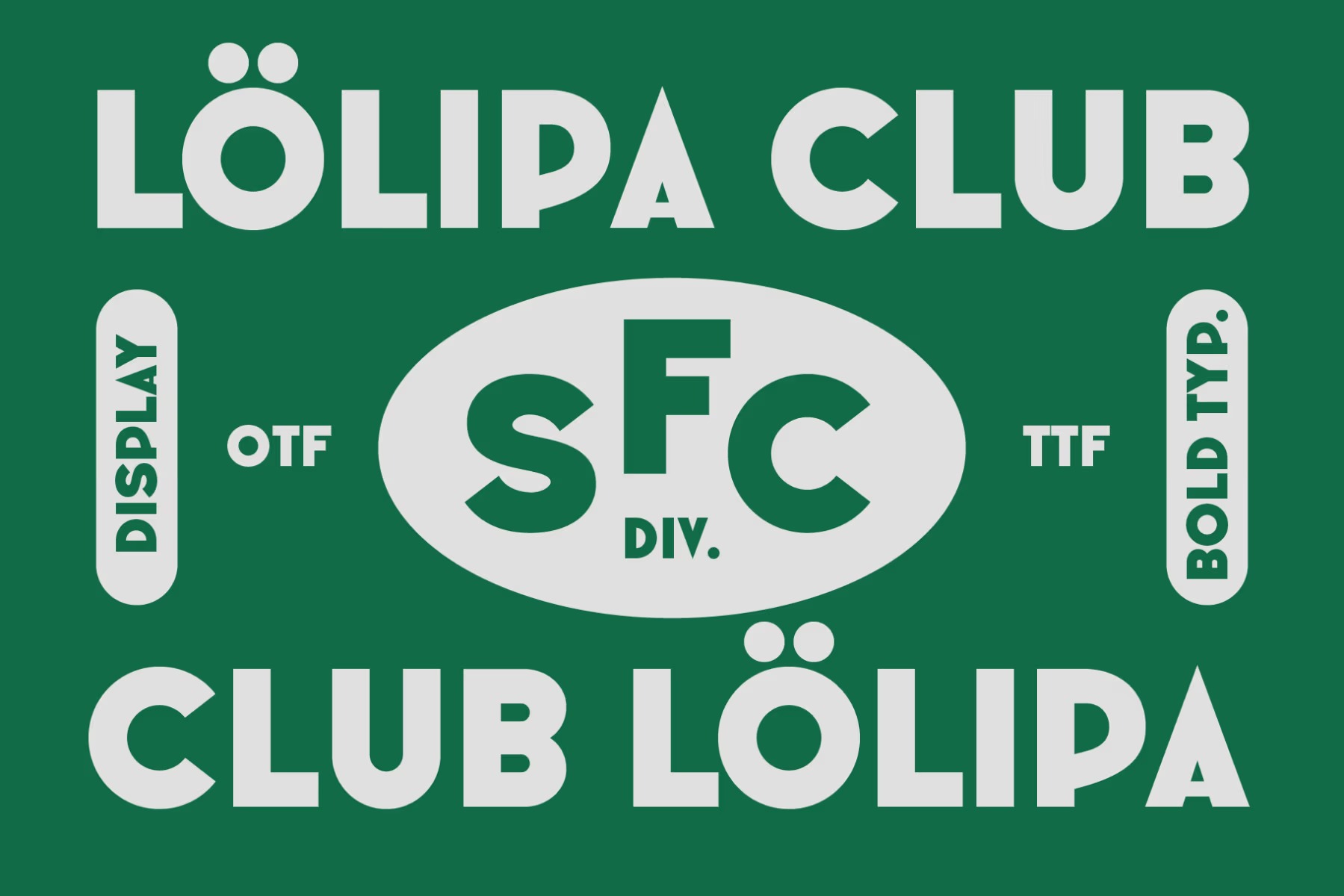
SFC Lolipa Club – Sans Serif Diplay Font
SFC Lolipa Club – Sans Serif Diplay Font is a distinctive and expressive font crafted to bring personality, structure, and creative energy into your projects. SFC LÖLIPA CLUB is a bold rounded sans serif display typeface inspired by modern club culture, retro signage, and contemporary branding. Featuring confident geometry, smooth curves, and strong all-caps forms, it delivers a playful yet clean personality that feels graphic, friendly, and instantly recognizable. Designed for clarity with character, LÖLIPA CLUB brings strong visual impact while remaining highly readable across both digital and print applications.